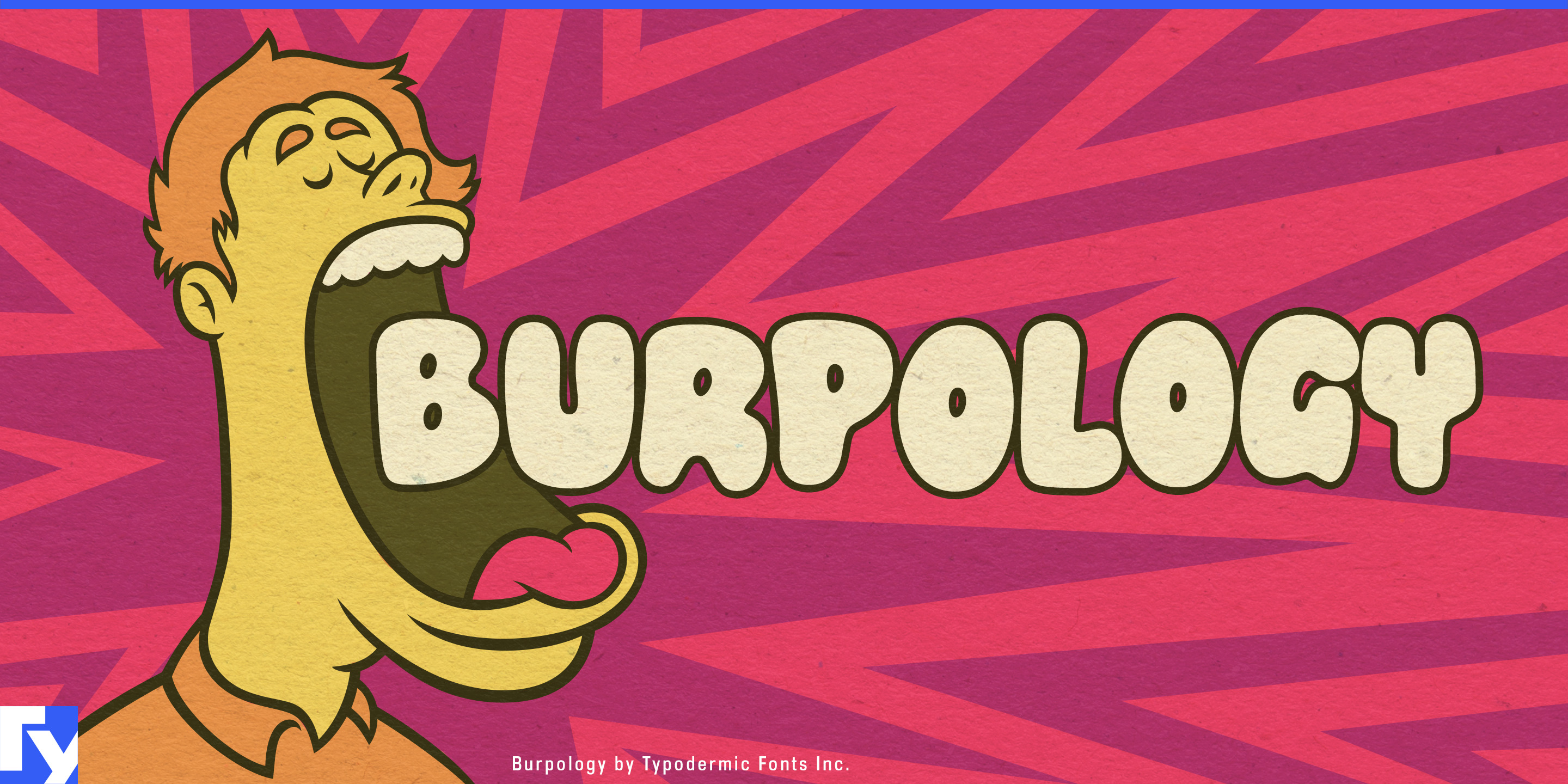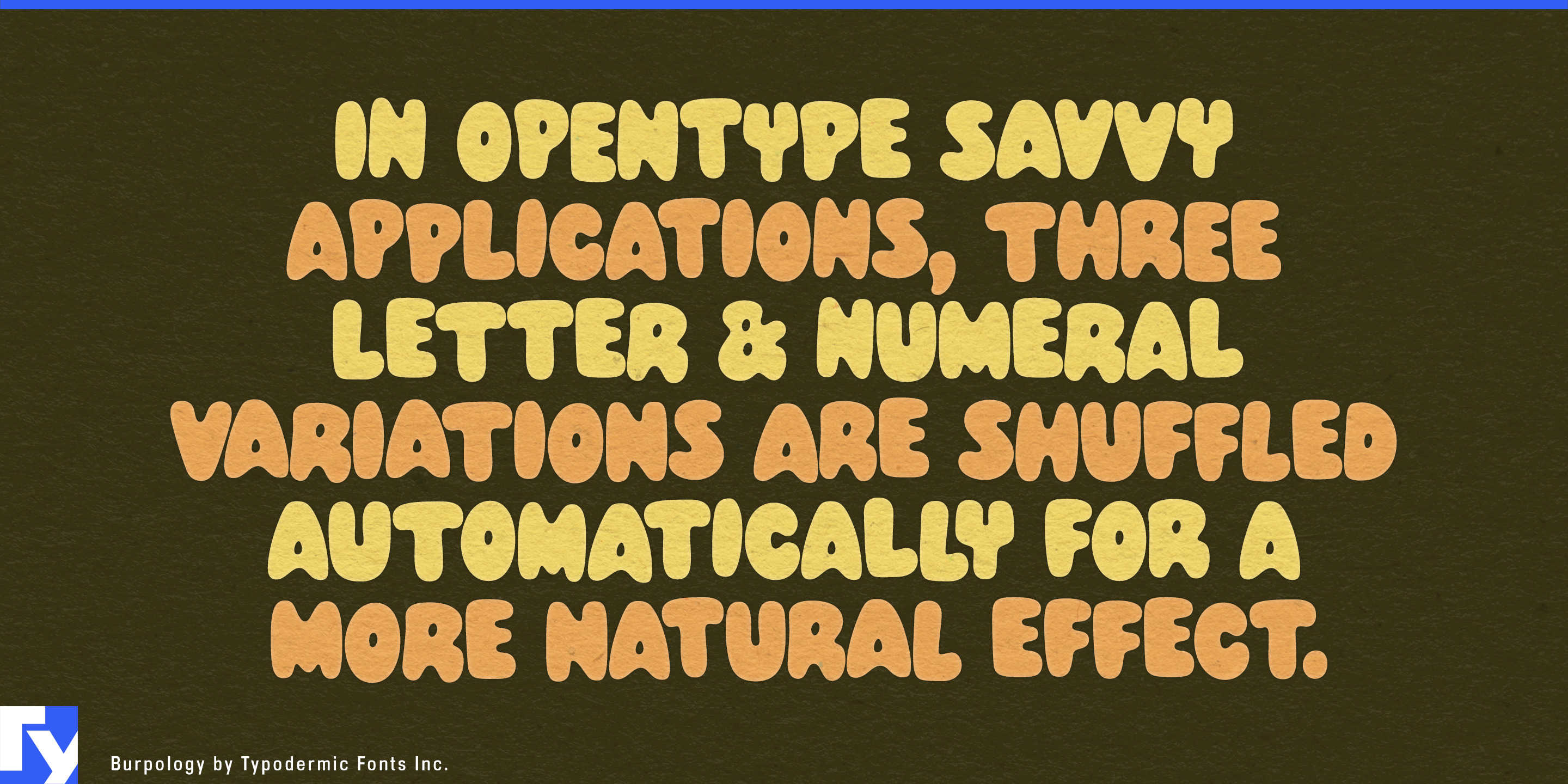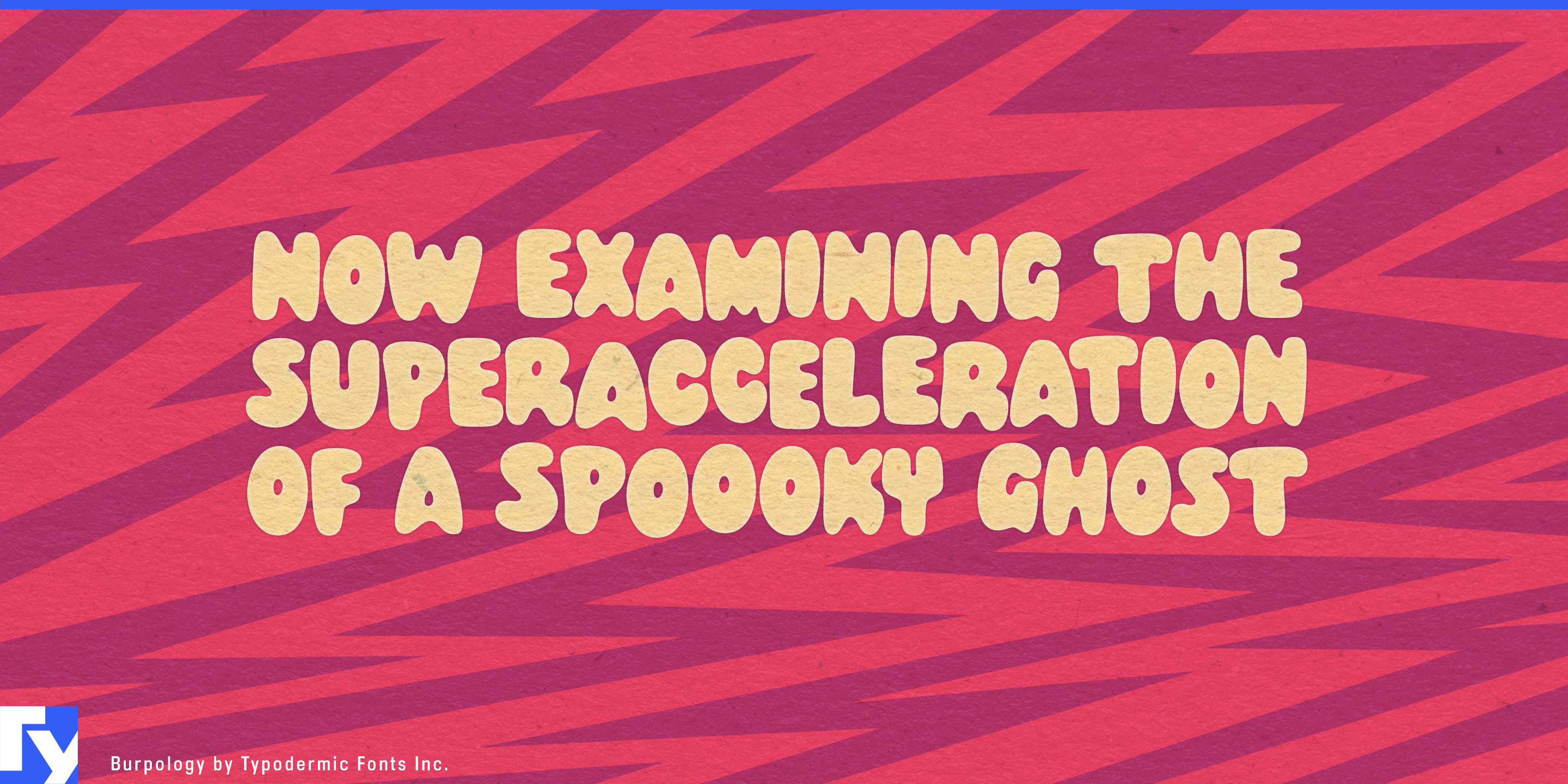
Burpology
Custom cartoon lettering is easy when a project needs one logo. It becomes harder when the same visual language has to produce dozens of flavor names, promotional headlines, product launches, or personalized names. Burpology turns that problem into a reusable display system.
Its all-caps letters are extremely heavy, tightly packed, and softly irregular, drawing on the swollen cartoon lettering of the 1960s and 1970s rather than polished geometric bubble type. Three versions of every letter and numeral can cycle automatically in compatible software, helping repeated characters avoid the identical shapes that often make informal display fonts look stamped out. Short words become thick, nearly continuous masses of lettering while the uneven contours keep them loose and hand-drawn.
Pet products are a particularly natural fit. Burpology originally grew from lettering for personalized dog leashes, and the same broad forms work across treats, chew toys, harnesses, grooming products, subscription boxes, daycare campaigns, and colorful pet accessories. Product names, individual pet names, treat varieties, pouch graphics, and retail promotions can carry substantial visual weight without becoming delicate or overly polished.
Fast-casual food provides another strong territory. Burger shops, fried-chicken concepts, sandwich chains, doughnut stores, soft-serve counters, and dessert brands constantly generate new product names and limited-time offers across wrappers, cups, boxes, menu graphics, delivery packaging, and storefront campaigns. Burpology can make a short food name do most of the graphic work while a cleaner companion face handles prices and details.
Cereal, cookies, flavored milk, frozen treats, and other family snack ranges can use the same density for product names, flavors, and promotional bursts. Collectible toys offer an equally good fit: blind-box figures, vinyl collectibles, retro robots, soft toys, and character merchandise can use Burpology for character names, box fronts, collector cards, convention displays, and launch graphics.
Bowling venues, indoor mini-golf, roller-skating centers, karaoke concepts, arcade bars, and family entertainment centers can extend the system into physical spaces through attraction names, seasonal events, food promotions, merchandise, and wall graphics.
Burpology is for the part that should look drawn: the product name, character name, flavor, promotion, attraction, or short campaign phrase. Its dense forms lay down plenty of ink; its alternate versions keep that mass from becoming too mechanical.